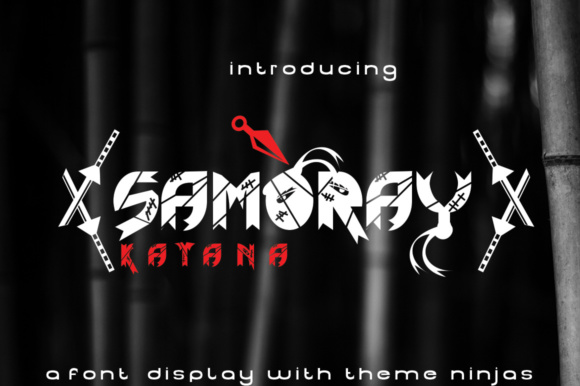
Step into the world of shadows and agility with Samoray, the display typeface that embodies the spirit of the ninja. Its sharp angles and dynamic curves dance across your designs, creating a striking yet playful aesthetic.
With Samoray, your words become weapons of precision, cutting through the clutter and captivating your audience. Its distinctive character adds an air of mystery and intrigue to any project, whether you're crafting logos, posters, or captivating social media posts.
Samoray is not just a font; it's a gateway to a world of limitless possibilities. Unleash your imagination and watch as your designs transform into masterpieces that command attention and leave a lasting impression.